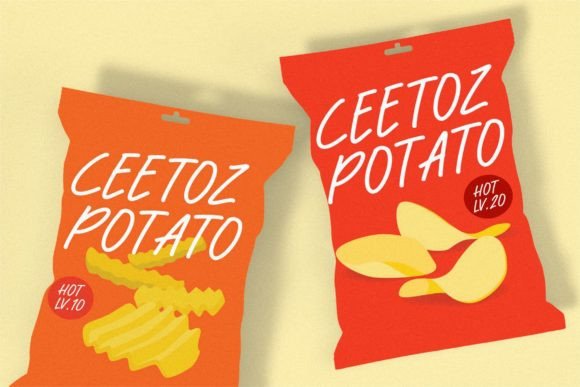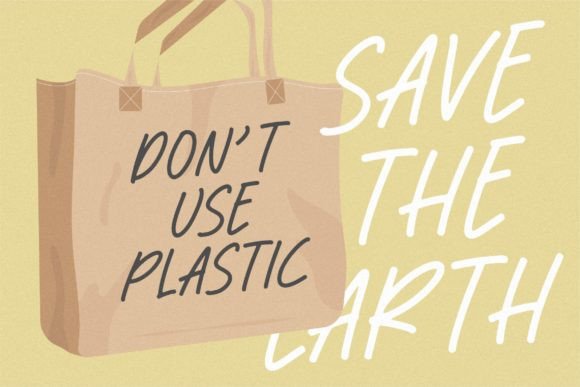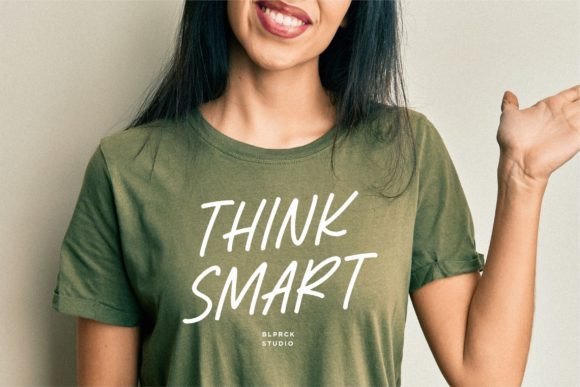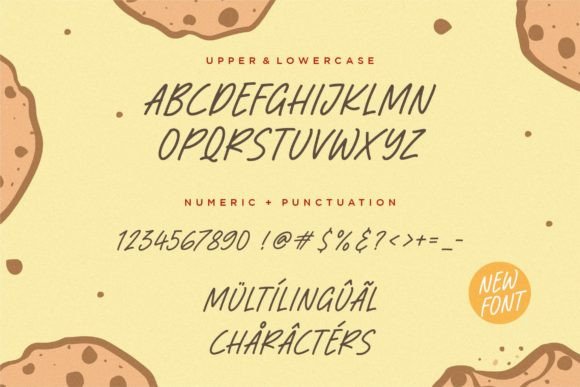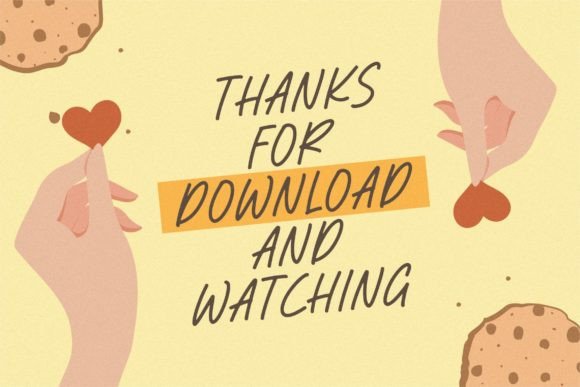
Introducing Almond Cookie Font: The Perfect Monoline Handwritten Companion for Designers and Crafters
Are you on the hunt for a font that can elevate your design game, add a personal touch to your crafts, and make your digital projects stand out? Look no further than Almond Cookie Font, a beautiful monoline handwritten font that is versatile, charming, and sure to become your new favorite.
What is Almond Cookie Font?
Almond Cookie Font is a monoline handwritten font that boasts a unique, elegant, and modern feel. Its monoline characteristics mean that the font has a consistent line width, giving it a clean and sophisticated appearance that works wonderfully for a variety of design applications.
One of the standout features of Almond Cookie Font is its incredible versatility. Whether you’re a designer working on a client’s project, a crafter making handmade cards or decorations, a teacher creating educational materials, or simply someone who loves to dabble in digital design, this font can be used in countless ways. It’s perfect for:
• Crafts: Add a personal touch to your DIY projects, such as handmade cards, scrapbooking, and other paper crafts.
• Digital Design: Use it for social media graphics, blog posts, and website designs to add a warm and inviting feel.
• Presentations: Elevate your presentations with a font that is both professional and engaging.
• Greeting Cards: Create beautiful and heartfelt greeting cards for any occasion.
Why You’ll Love Almond Cookie Font
So, what makes Almond Cookie Font so special? Here are just a few reasons why it’s sure to become your go-to font:
• Easy to Read: Despite its elegant appearance, Almond Cookie Font is highly legible, making it perfect for both headings and body text.
• Highly Versatile: As mentioned, it can be used for a wide range of projects, from digital designs to handmade crafts.
• Unique yet Approachable: The monoline handwritten style gives it a unique personality that is both sophisticated and approachable.
• Time-Saving: Having a font that can be used across various projects saves you time and effort in searching for and pairing different fonts.
Tips for Using Almond Cookie Font
To make the most out of Almond Cookie Font, here are a few tips:
• Pair it Wisely: While Almond Cookie Font is stunning on its own, it can also be paired with other fonts to create interesting contrasts. Try pairing it with a sans serif font for a modern look or with a serif font for a more traditional feel.
• Play with Colors: The beauty of Almond Cookie Font is highlighted by the right color choices. Experiment with different colors to find the perfect match for your project.
• Adjust the Size: Don’t be afraid to play around with the font size. Almond Cookie Font looks great in large headings and smaller body text.
Almond Cookie Font is more than just a font; it’s a design companion that can elevate your projects, add a personal touch to your crafts, and make your digital designs stand out. Its versatility, elegance, and readability make it a must-have for designers, crafters, and anyone who loves to create. So, why wait? Give Almond Cookie Font a try today and discover how it can become your favorite go-to font for all occasions.
Whether you’re a seasoned designer or a hobbyist crafter, Almond Cookie Font is sure to inspire your creativity and help you bring your projects to life in a beautiful and meaningful way.